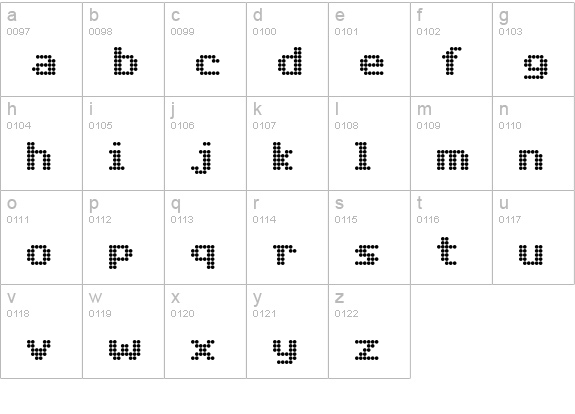
DotMatrix-TwoExtended is a modern and stylish font that is perfect for adding a unique touch to your designs. This font features a clean and bold dot matrix style, making it ideal for various projects such as posters, banners, and branding materials. With its extended character set, DotMatrix-TwoExtended offers versatility and creativity in your typography. The best part is that DotMatrix-TwoExtended is available for free download at FontsMarket.com. This means you can easily access this font and use it in your personal and commercial projects without any cost. Don't miss out on the opportunity to enhance your designs with this eye-catching font. Download DotMatrix-TwoExtended today and let your creativity shine!